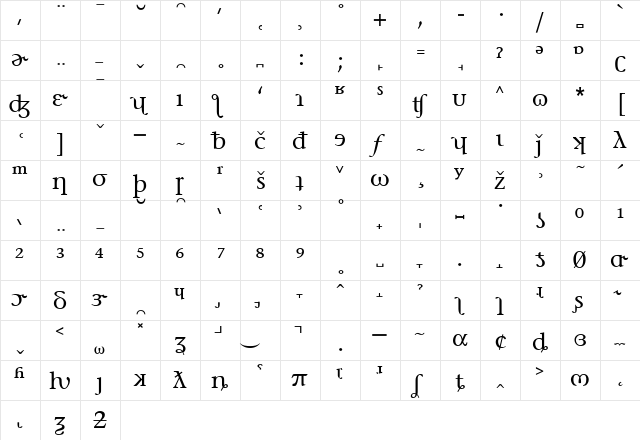
Stone Serif PhoneticAlternate Regular Font Preview
Stone Serif PhoneticAlternate Regular
Design Context for Stone Serif PhoneticAlternate Typeface
Stone Serif PhoneticAlternate brings classic typographic sensibility to the table — its serifs and measured letterforms reflect centuries of print heritage.